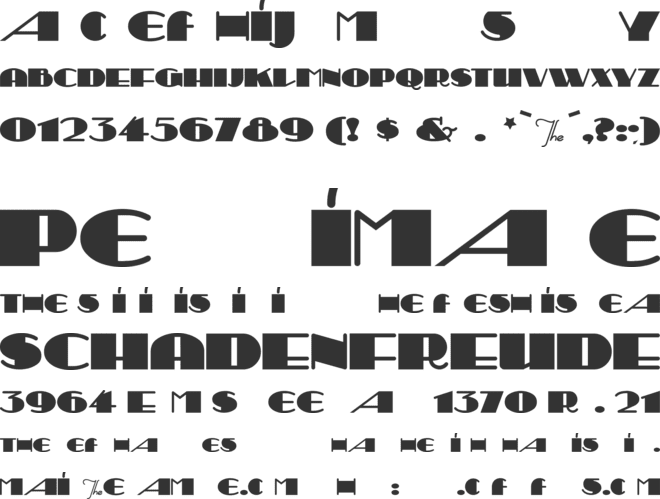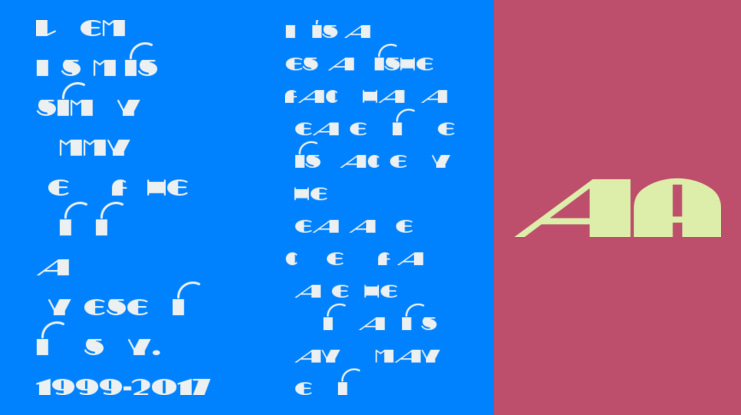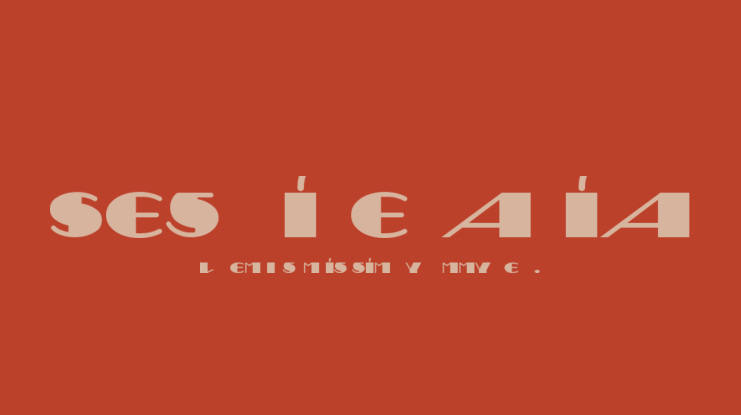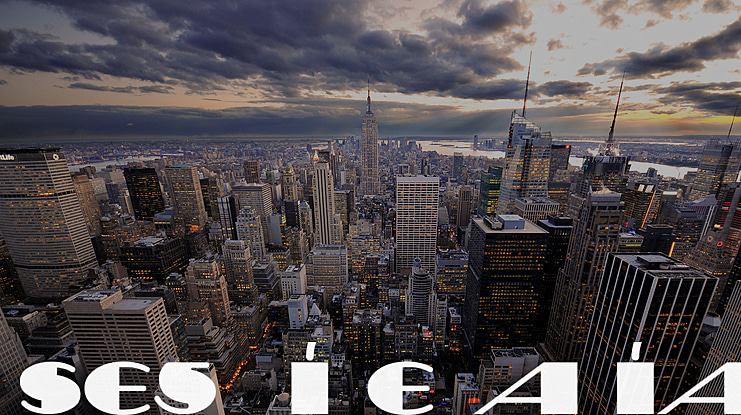
Sesquipedalian Font
Yes, the name is a mouthful, and rightly so. The term was coined to describe words “a foot-and-a-half long.” and, when using this font, it’s easy to set words that length. Inspired by a handlettered logo for Torre’s Buckdruckerei in Vienna, circa 1919.